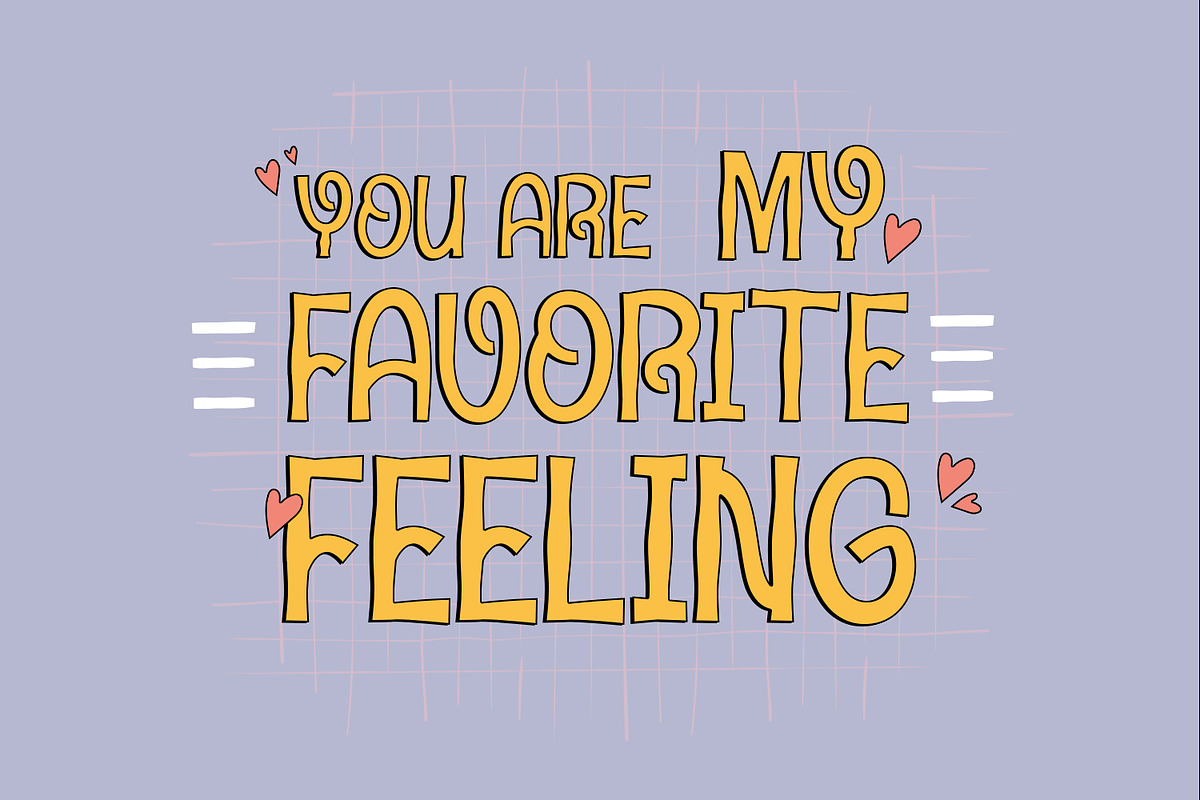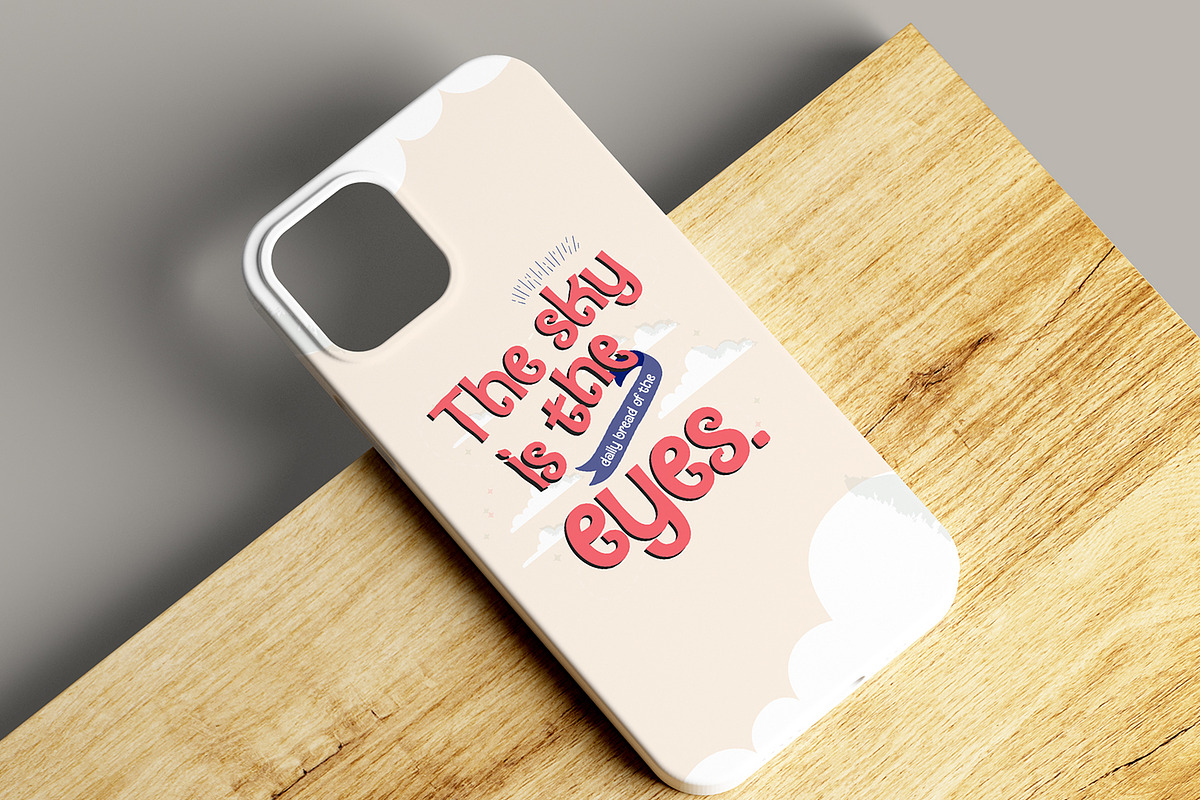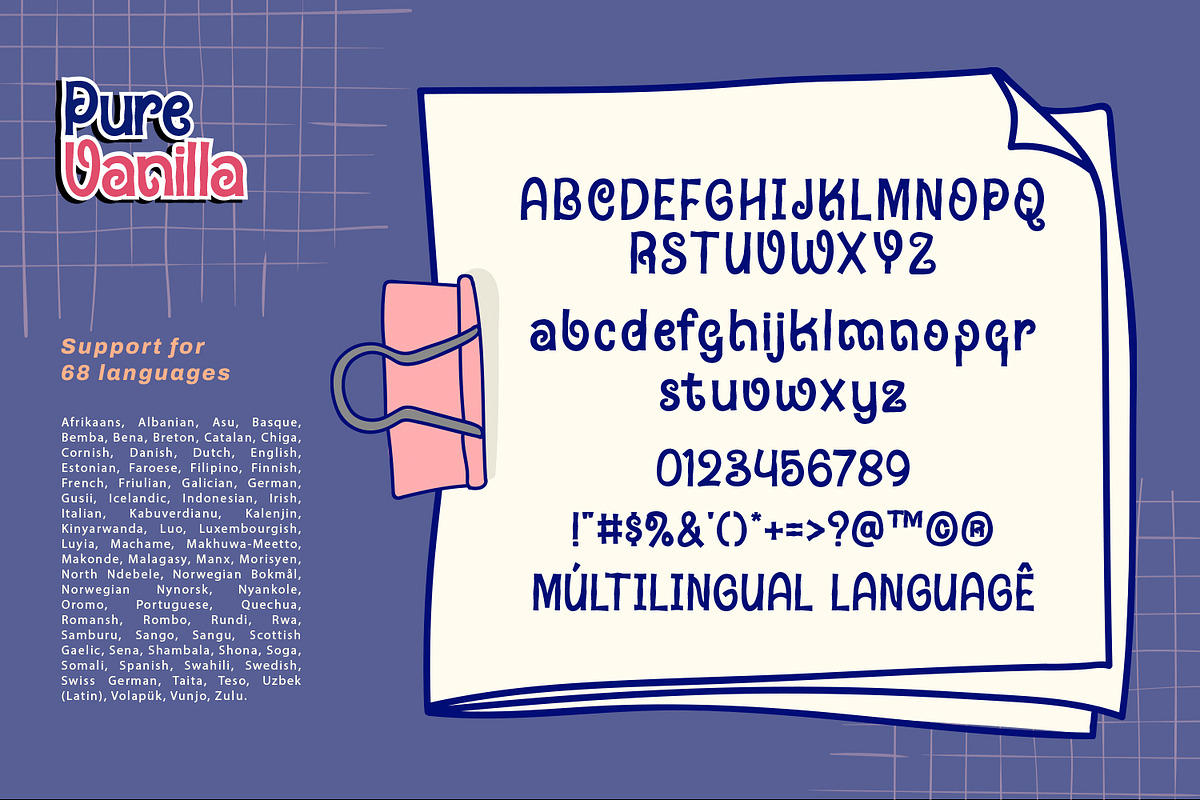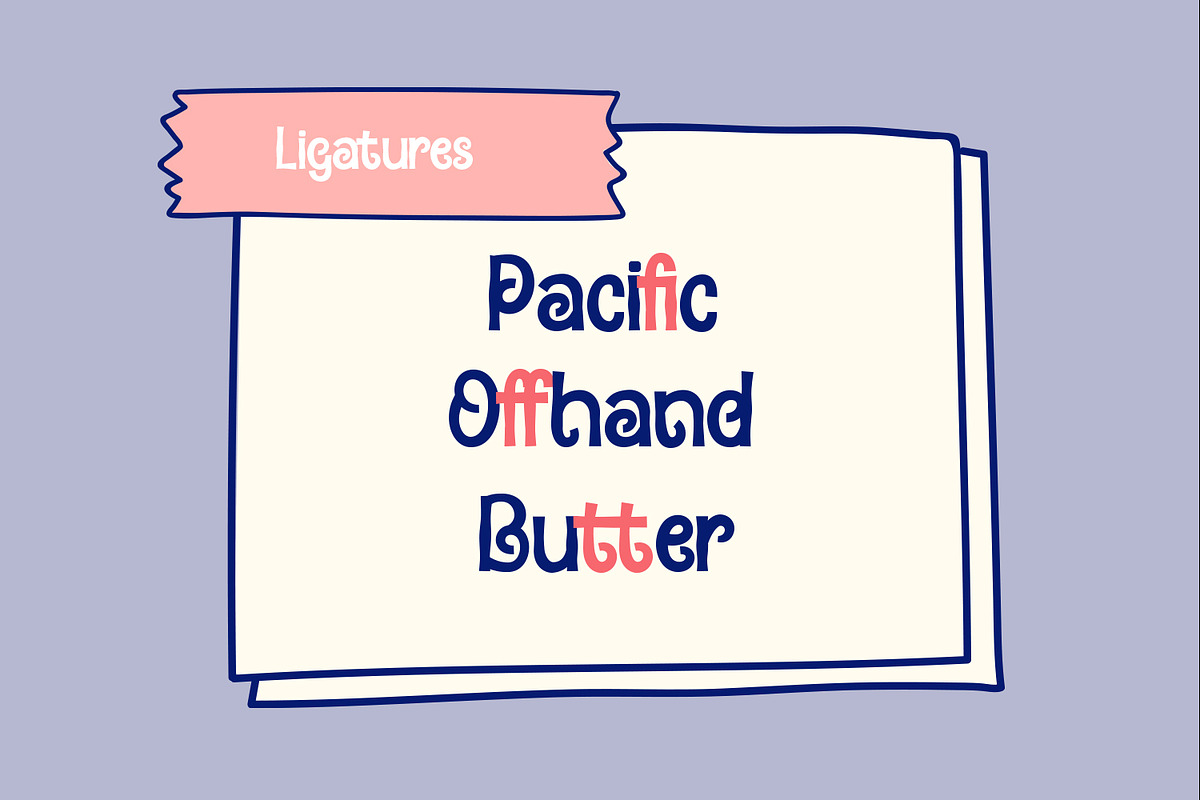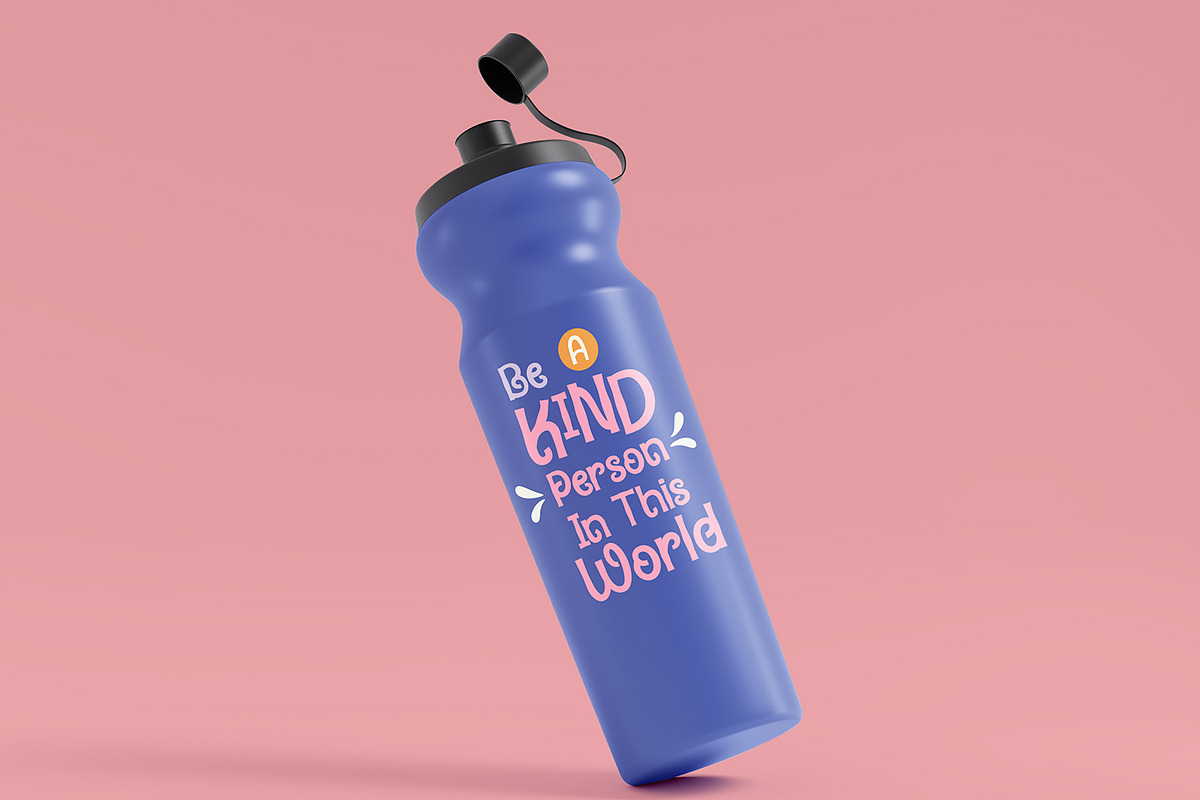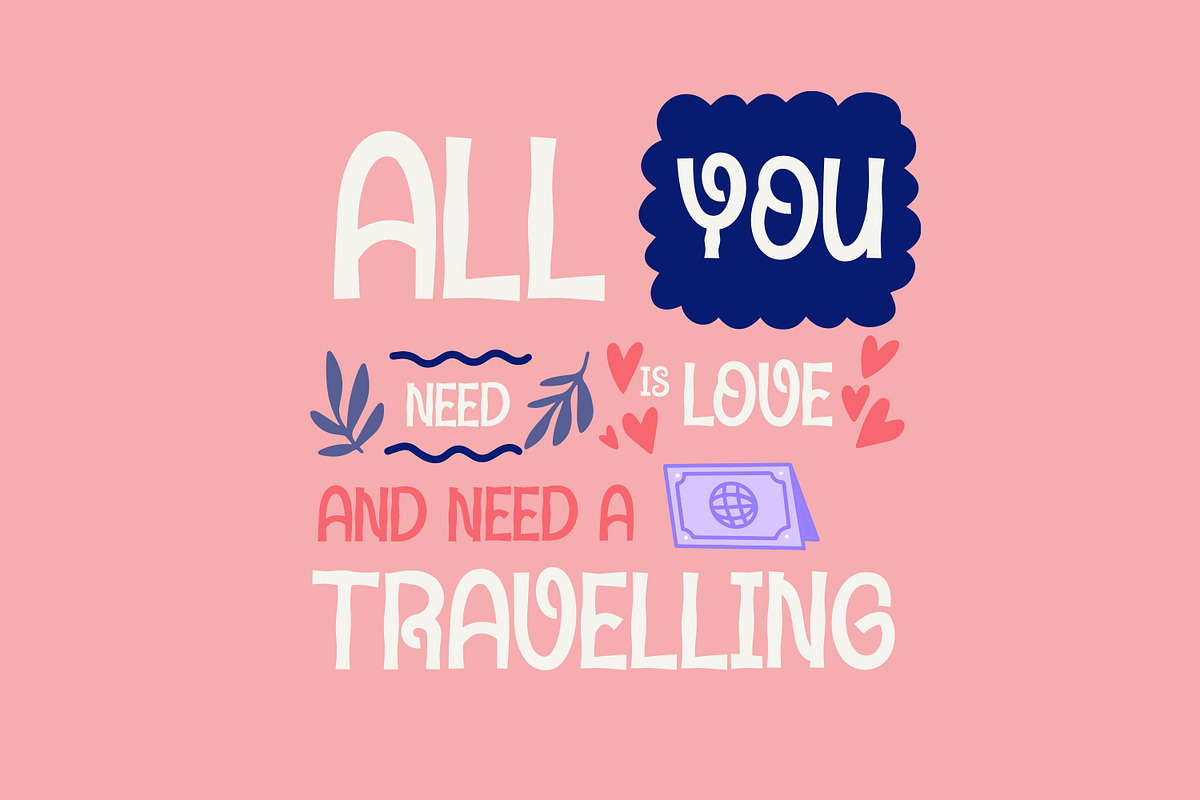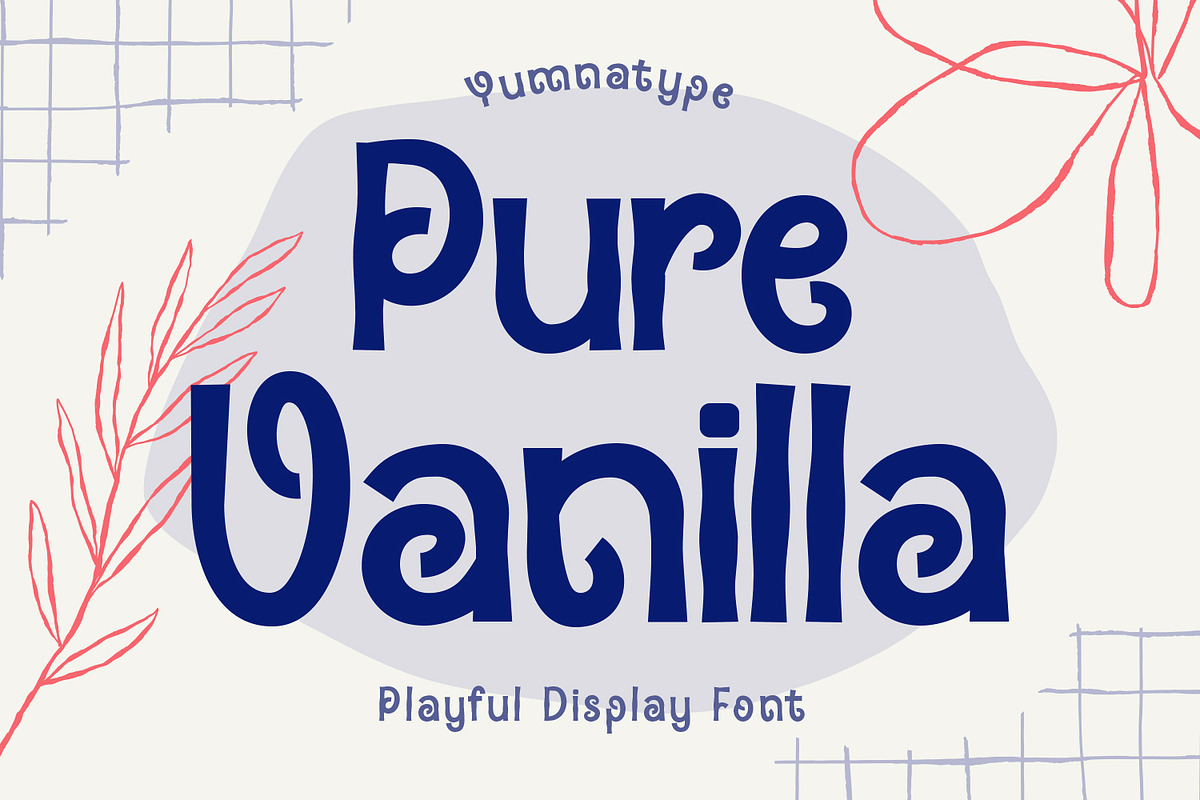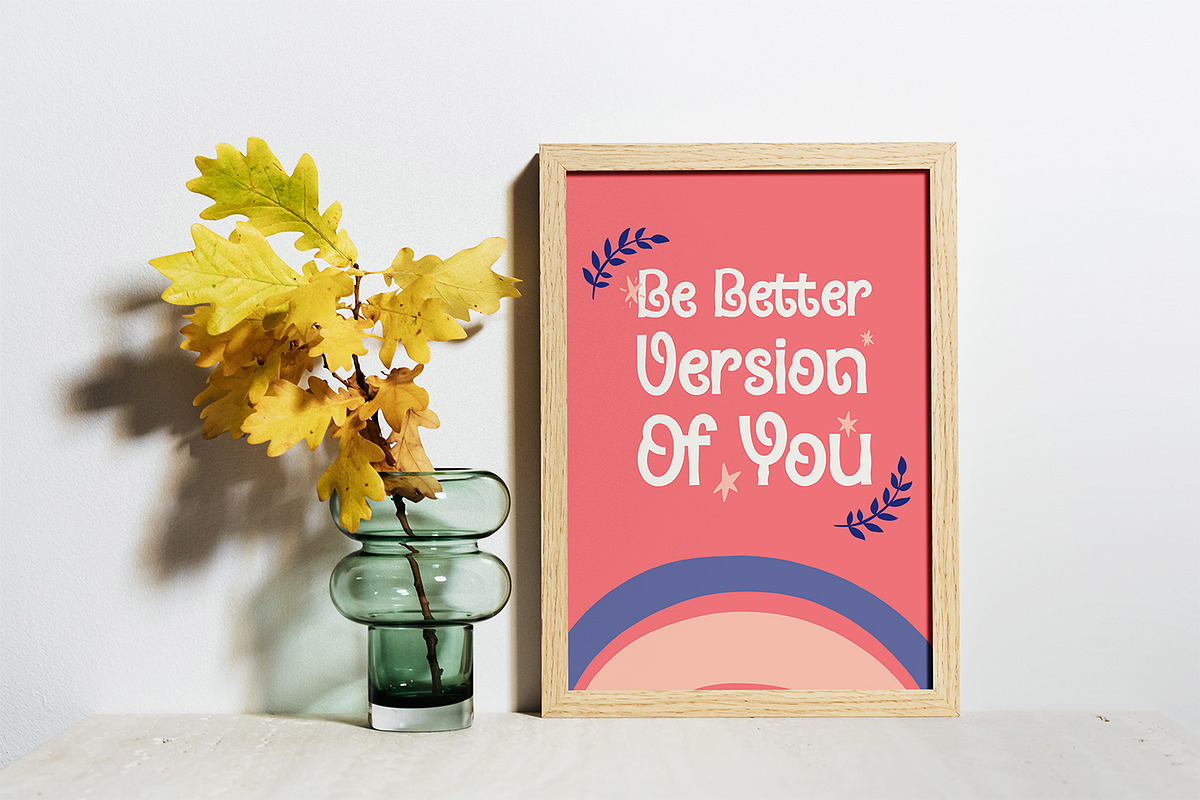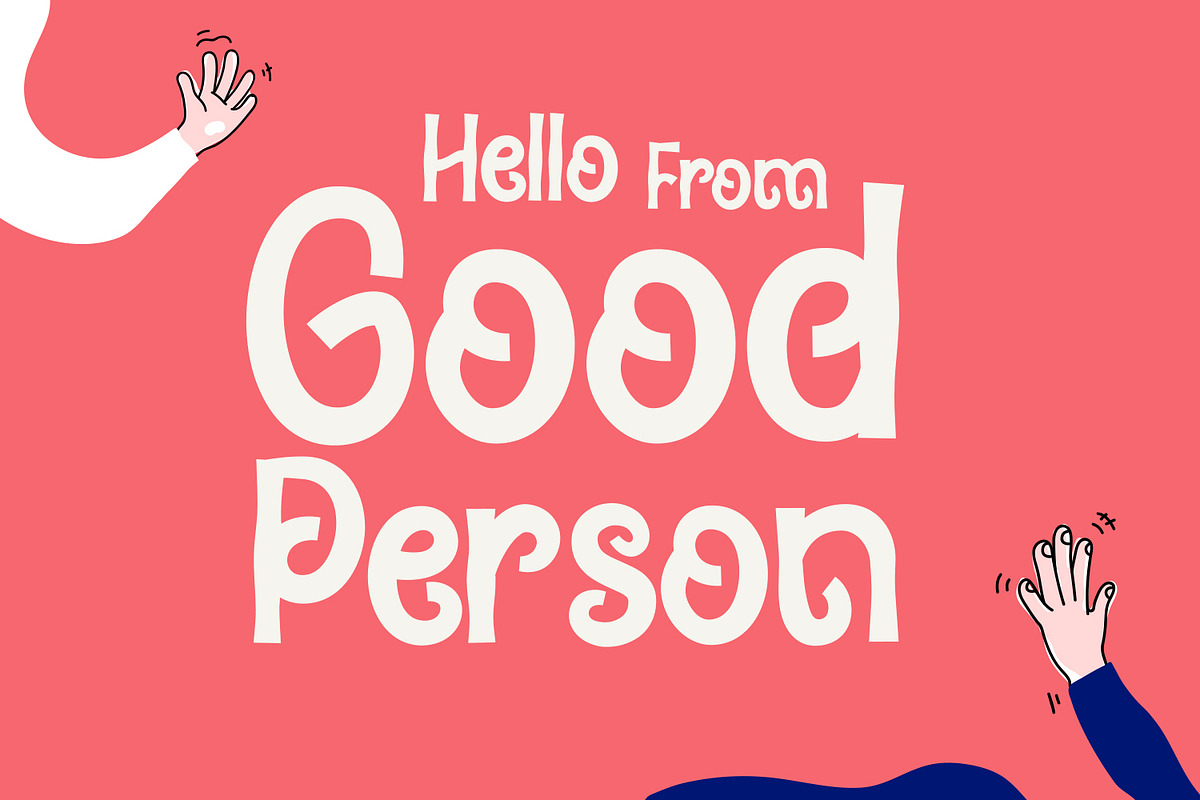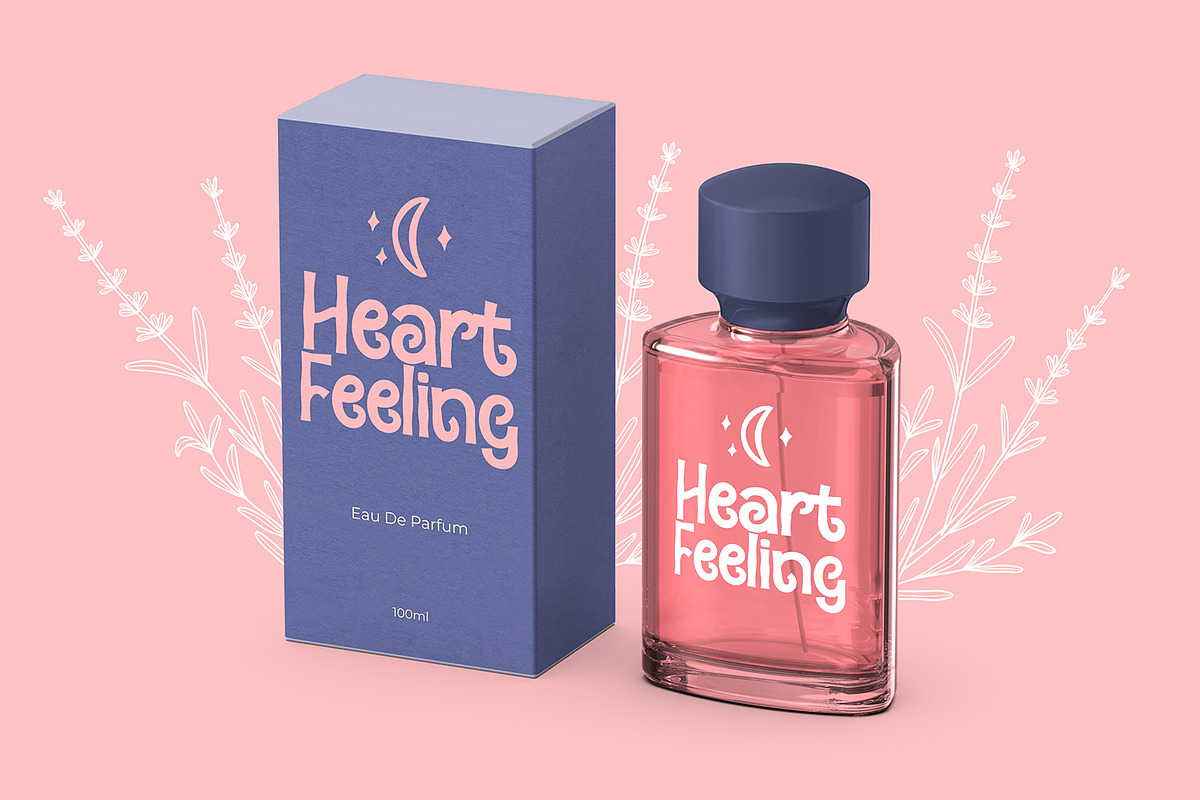
Pure Vanilla
Pure Vanilla is a charming display font that exudes sweetness and playfulness. The letter shapes in Pure Vanilla are subtly rounded, giving them a soft and friendly appearance that invites viewers to engage with your text. Each letter is meticulously crafted with consistent proportions, creating a harmonious rhythm and flow that adds to the font's overall charm. In addition, enjoy the features here.
Pure Vanilla fits in headlines, logos, posters, flyers, branding materials, print media, editorial layouts, and many more designs. Find out more ways to use this font by taking a look at the font preview.